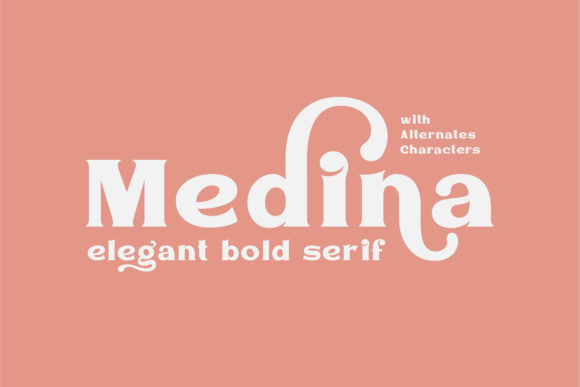
Looking for the best font for your vintage logos? Look no further than the Medina font! Created by the expert team at Viaction Type.Co, this chunky lettered serif font is sure to catch the eye and make a statement.
With elegant characters and a bold, unique look, the Medina font is the perfect choice for anyone looking to add a touch of vintage style to their designs. Whether you're working on a logo, a poster, or any other kind of project, this font will help bring your ideas to life.
But the Medina font isn't just stylish – it's also incredibly versatile. Whether you're going for a classic, retro feel or a more modern look, this font can do it all. And with its bold, attention-grabbing style, it's sure to make a lasting impression on anyone who sees it.
So if you're looking for a font that will take your designs to the next level, look no further than Medina. Add it confidently to your collection and watch as your creations come alive with style and sophistication.